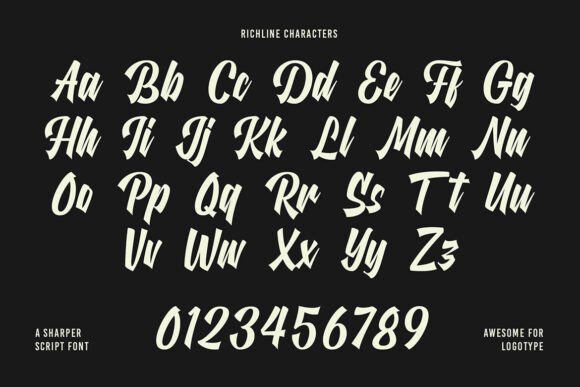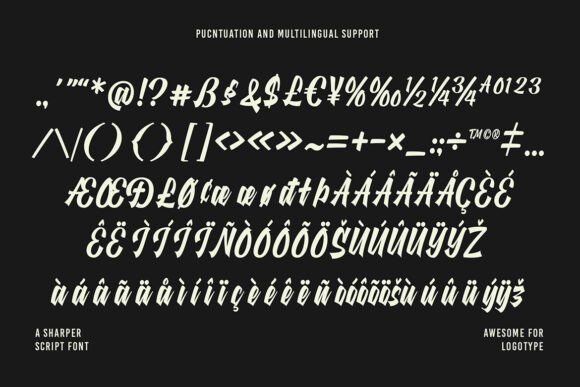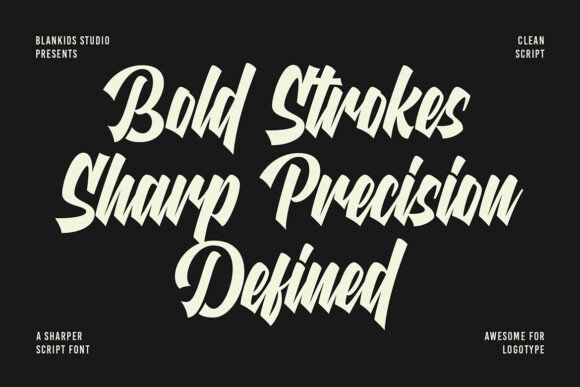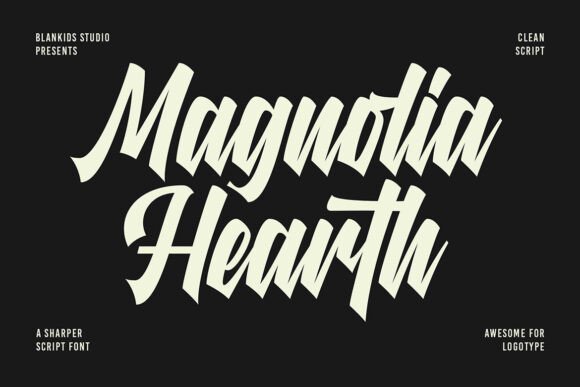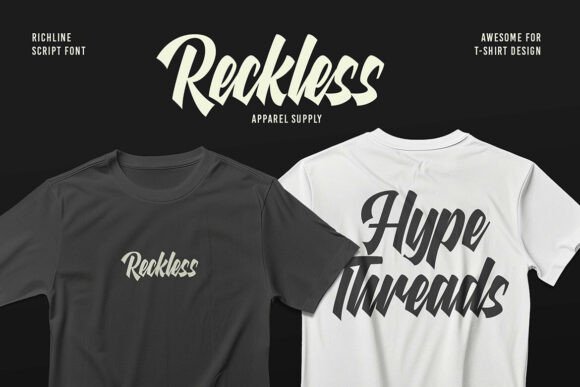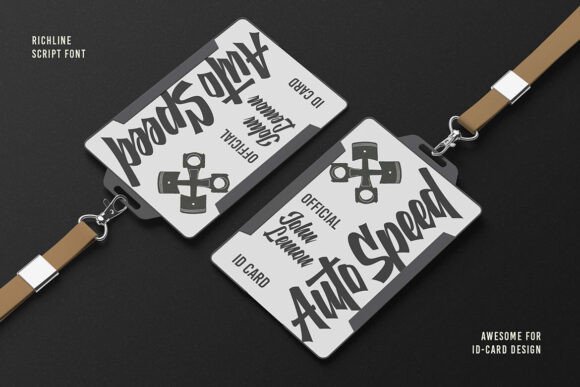
Introduction to Richline Font
The moment of creative epiphany – you’re brainstorming ideas for a new project and you need the perfect font to bring it to life. Whether it’s a logo, a t-shirt design, or a promotional poster, the right font can make all the difference. That’s where the Richline Font comes in – a stunning, high-quality script font that’s designed to elevate your creative project to the next level.
As a valuable resource for designers, the Richline Font is a game-changer. With its sharper script style and transparent background, it’s the perfect tool for creating visually striking designs that grab attention. From branding and promotions to product packaging and more, the Richline Font is a versatile design resource that’s sure to inspire.
Key Features of Richline Font
- High-quality, professional font suitable for various creative projects
- Perfect for use as a design resource with a transparent background for seamless integration
- Includes multiple font styles and weights for added versatility
- Unique, modern design that sets your project apart from the crowd
Honest Review: Richline Font
As a designer, I’m always on the lookout for high-quality design resources to elevate my creative projects. Recently, I had the opportunity to try out the Richline Font, and I must say it’s a great addition to my design arsenal.
Here’s what I love about the Richline Font:
- ✨ High-quality design: The font is clean, modern, and visually appealing, making it perfect for a wide range of creative projects.
- ✨ Versatile: The font comes in multiple weights and styles, allowing me to experiment with different typography options.
- ⚠️ Limited customizability: While the font is high-quality, it’s not particularly customizable, which might be a drawback for some designers.
- ⚠️ Transparent background: The font doesn’t have a transparent background, which can make it difficult to use in certain design scenarios.
Overall, I’m impressed with the Richline Font, and I think it’s a great resource for designers working on creative projects. While it’s not perfect, its strengths far outweigh its limitations, making it a valuable addition to any design library.
The Richline Font is perfect for a variety of creative projects, including business cards, brochures, and social media graphics. Use it to add a touch of sophistication and elegance to your designs.
Alternatives to Richline Font